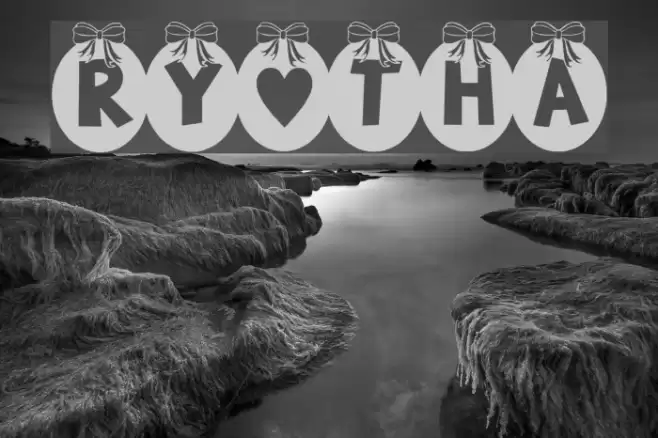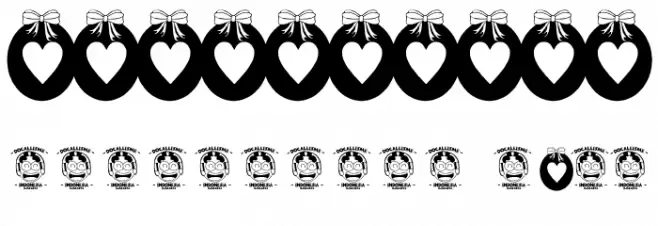
RY-THA Font
RY-THA Description
This decorative font features uppercase letters encased in circular ornaments with a bow on top, giving it a festive and playful appearance. The bold, sans-serif letters are centered within each ornament, creating a striking contrast against the solid black background. The font is designed to capture attention and convey a sense of celebration or holiday spirit. The unique presentation of each character makes it ideal for creative projects that require a touch of whimsy and charm.
A playful, decorative font with bold letters inside ornament-like circles topped with bows from Uncategorized fonts.
- Proposed Projects: Ideal for holiday cards, festive banners, party invitations, and decorative posters.